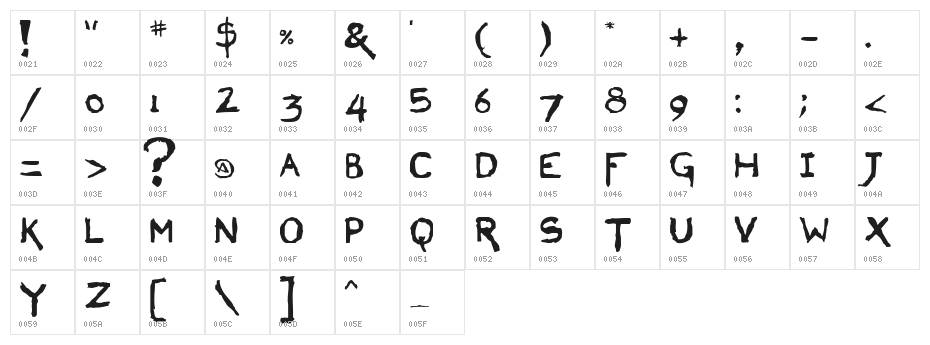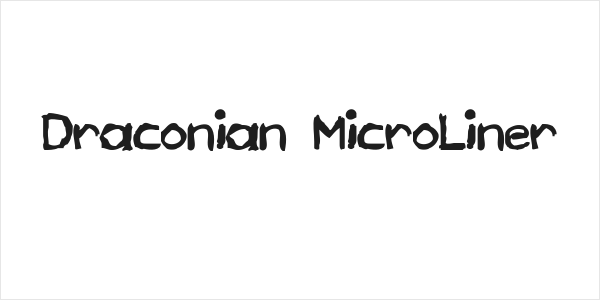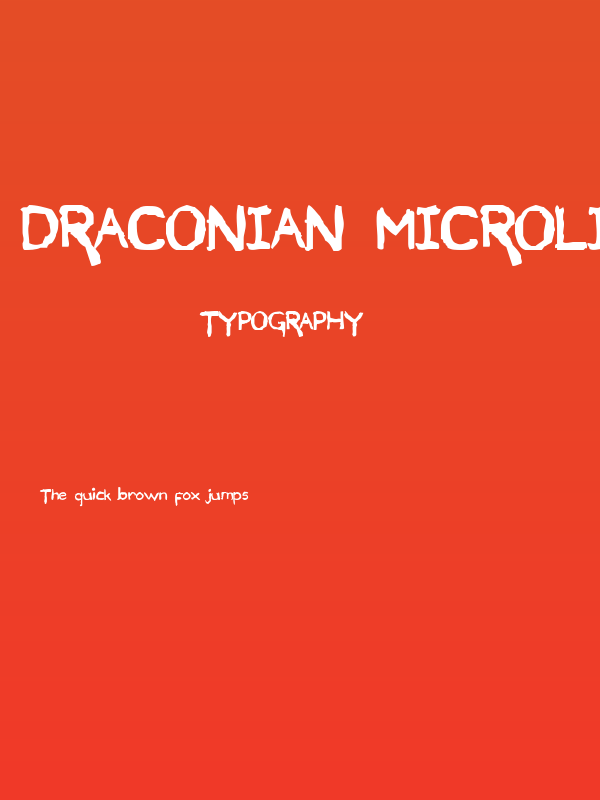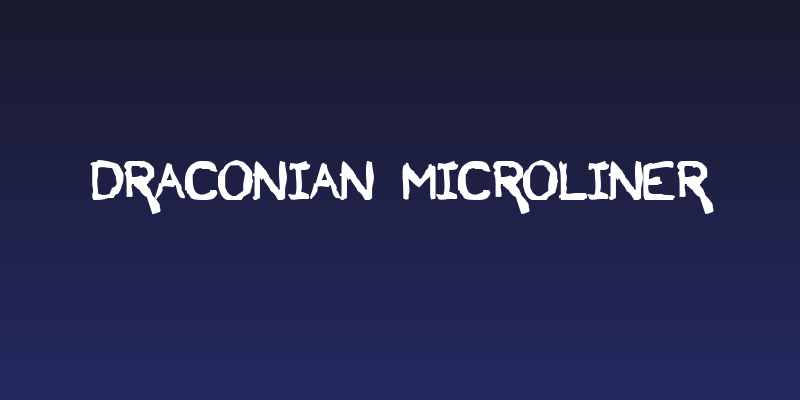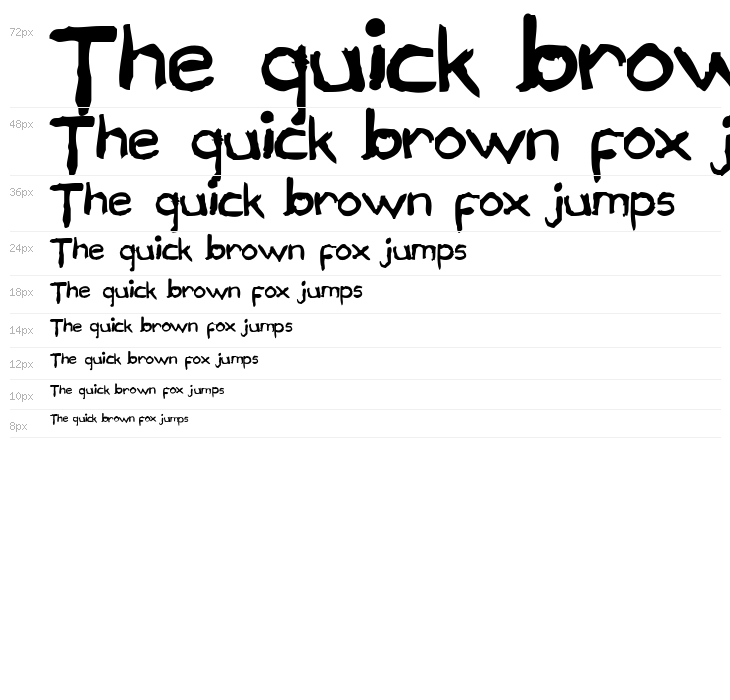
Draconian MicroLiner Font
Draconian MicroLiner Description
This font exhibits a bold, hand-drawn style with a rugged and organic appearance. The characters are uneven and slightly distorted, giving it a raw and expressive feel. The uppercase and lowercase letters maintain a consistent style, with thick strokes and irregular edges that suggest a sense of movement and energy. The numbers and special characters follow the same aesthetic, contributing to a cohesive look. This font's unique design makes it stand out, ideal for projects that require a touch of creativity and individuality.
| Proposed Projects | Ideal for artistic projects, posters, album covers, and creative branding that require a distinctive and energetic look. |